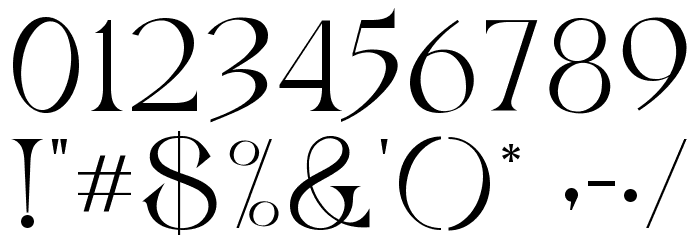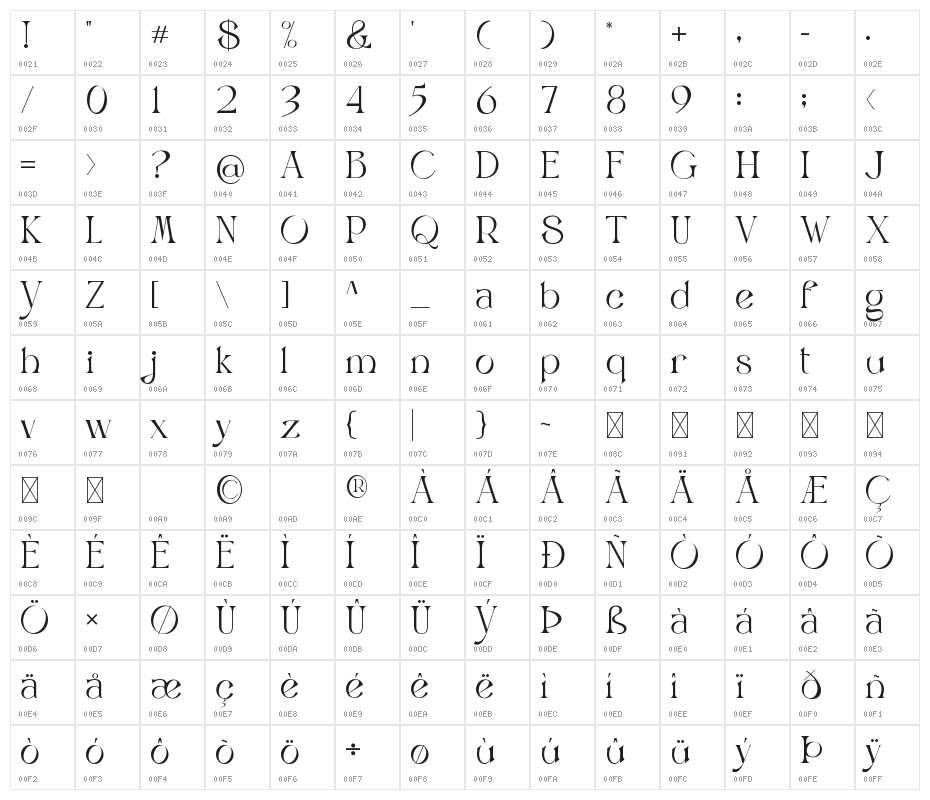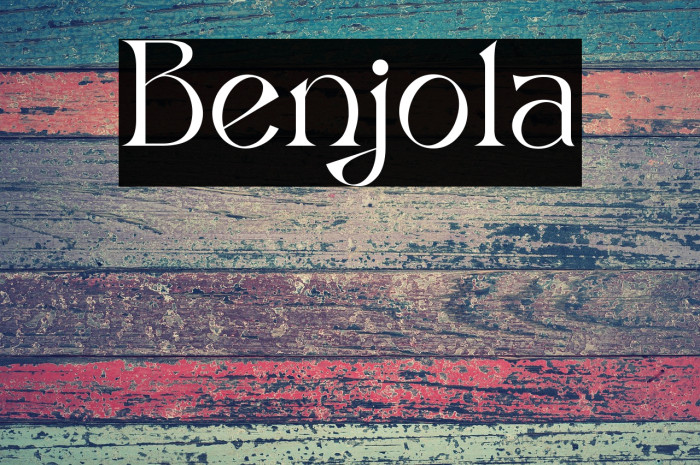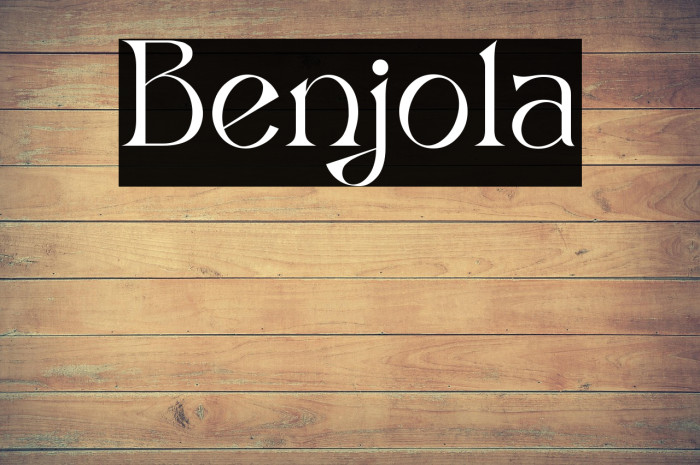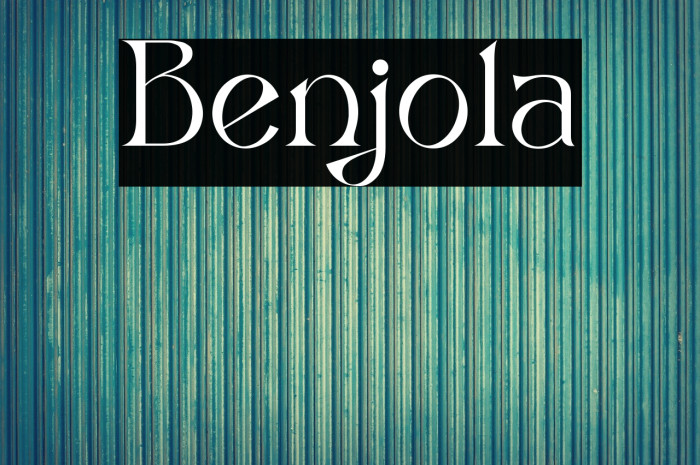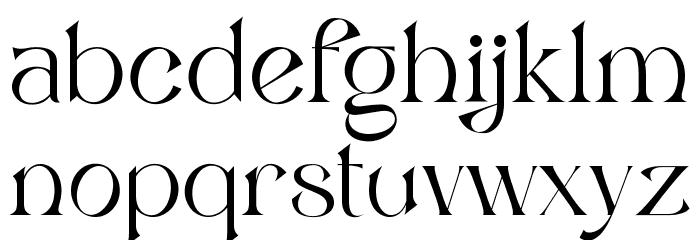
Benjola Font
Benjola Description
This font exhibits a classic serif style with elegant, elongated strokes and a high contrast between thick and thin lines. The uppercase letters are tall and stately, while the lowercase letters maintain a graceful flow with distinctive curves. The numerals are designed with a traditional flair, complementing the overall sophisticated appearance. Special characters are crafted with attention to detail, enhancing the font's versatility. This typeface is suitable for projects that require a touch of elegance and refinement.
| Use Case | Headlines, Logos, Editorial design |
| Proposed Projects | Ideal for luxury branding, editorial design, wedding invitations, and high-end product packaging. |